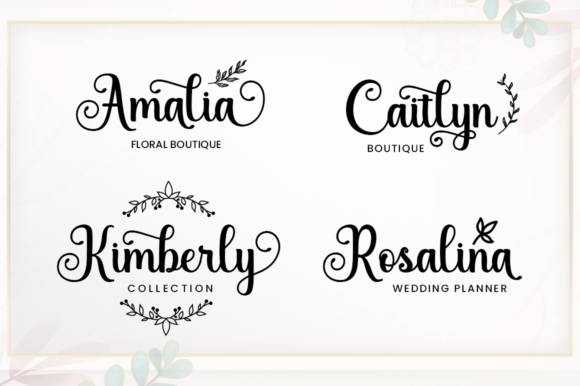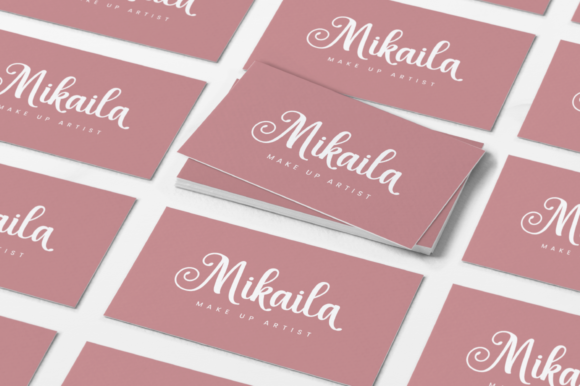
Humility Font
db-ku.com - Script & Handwritten -- Humility is a delicate, elegant and flowing handwritten font. It has beautiful and well balanced characters and as a result, it matches a wide pool of designs. Humility is PUA encoded which means you can access all of the glyphs and swashes with ease!